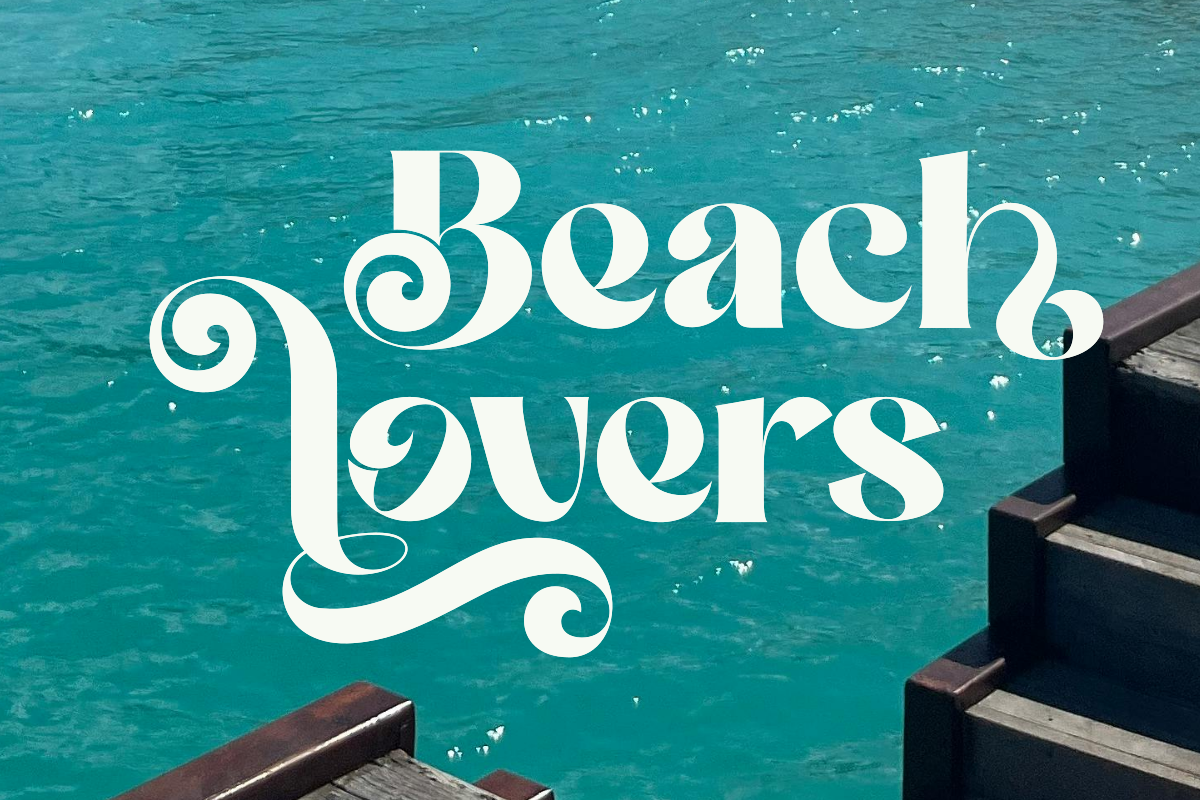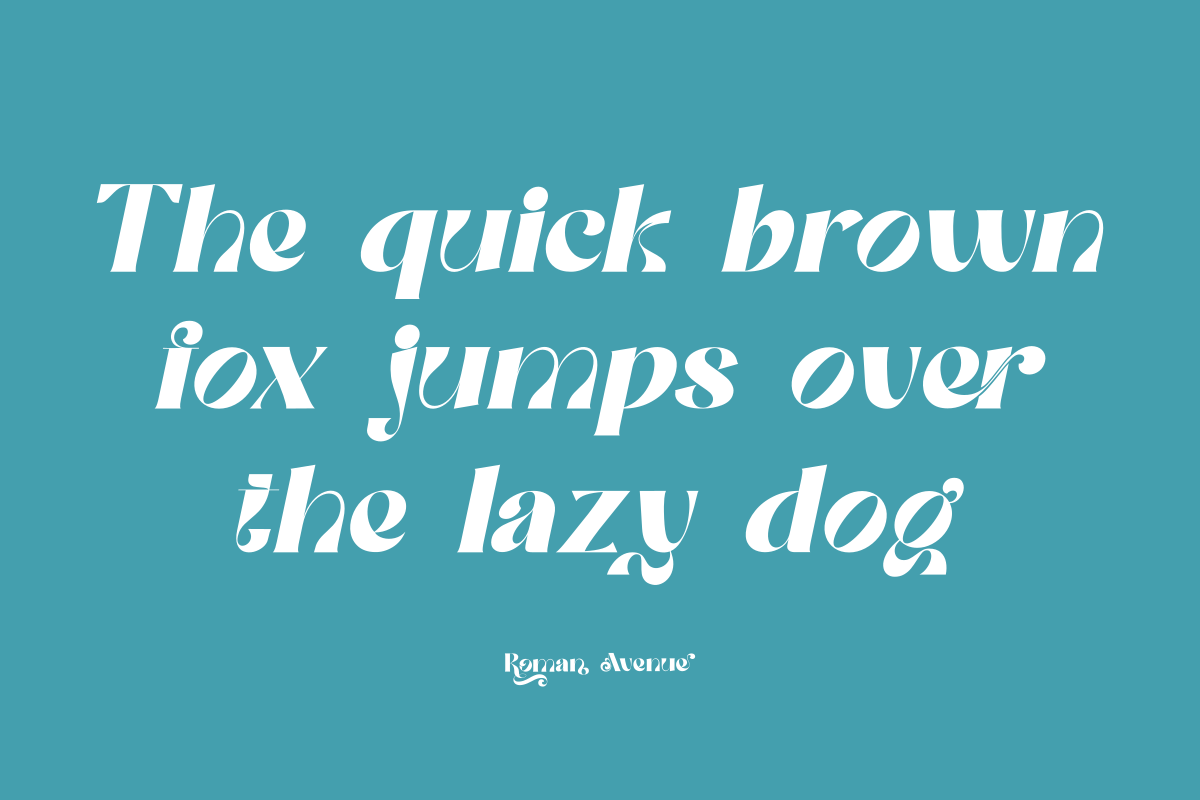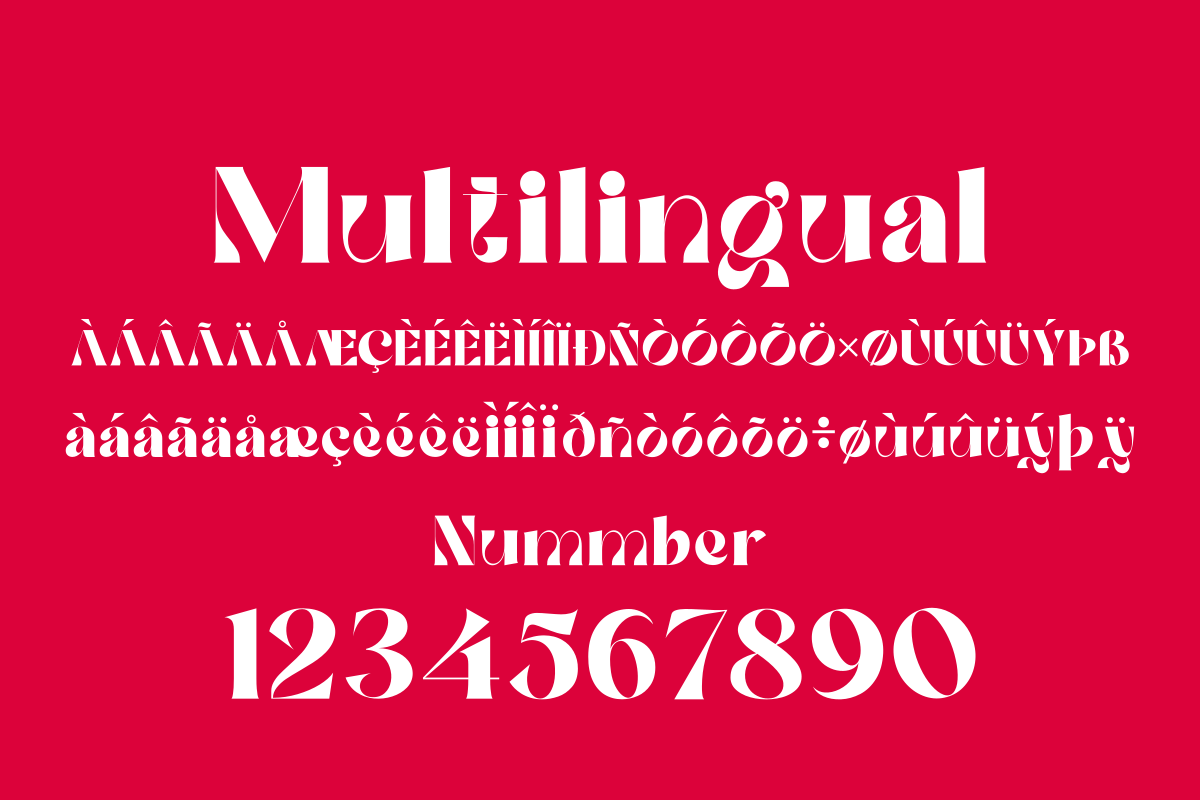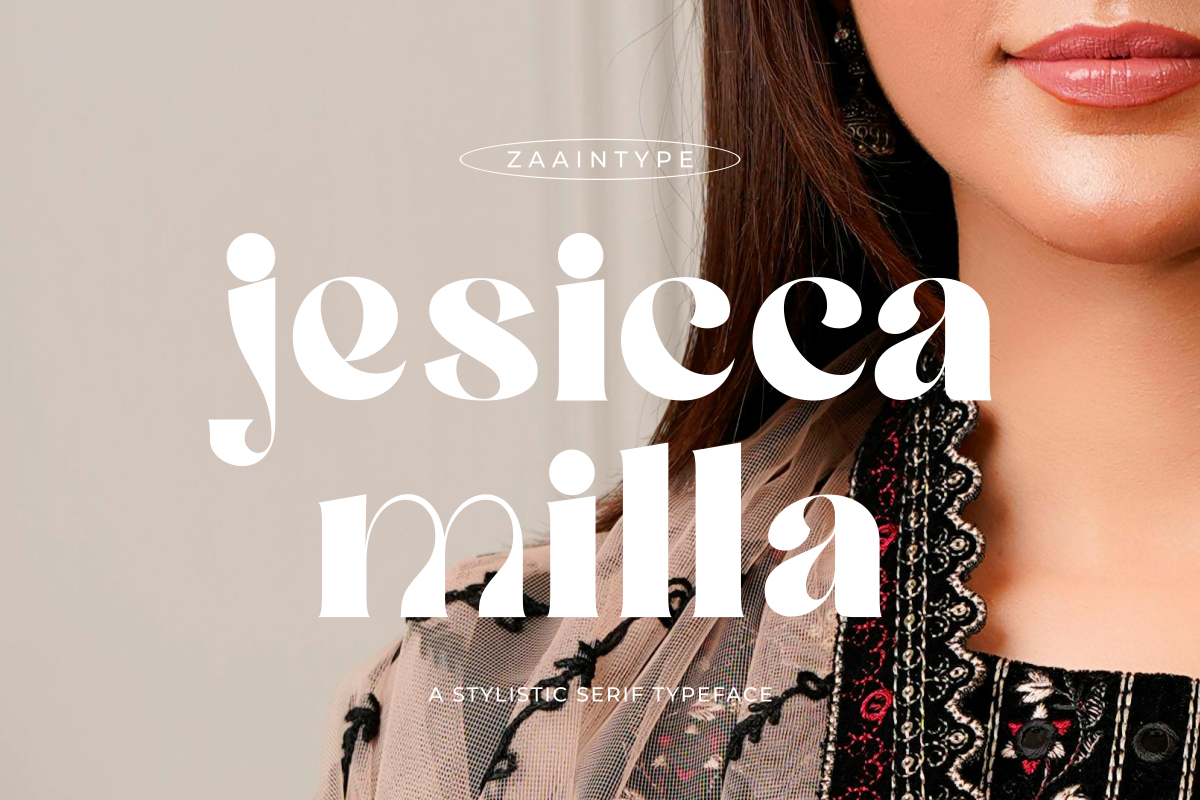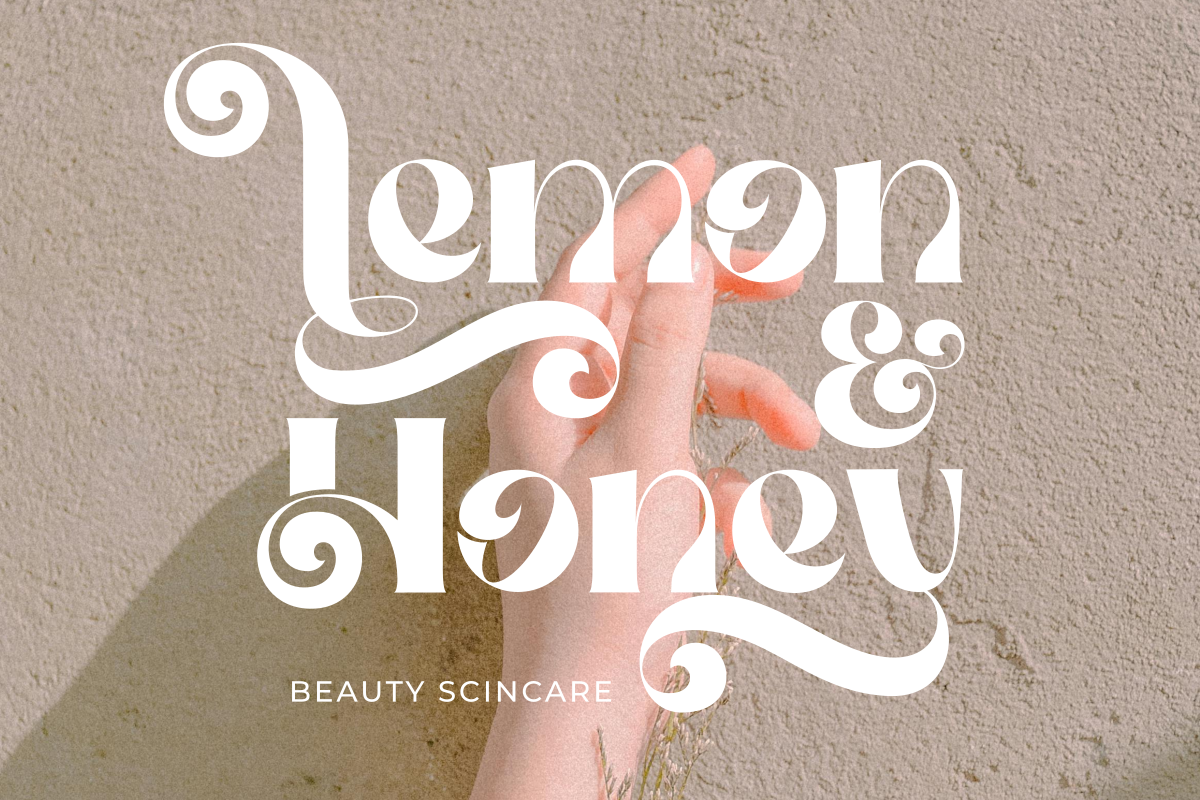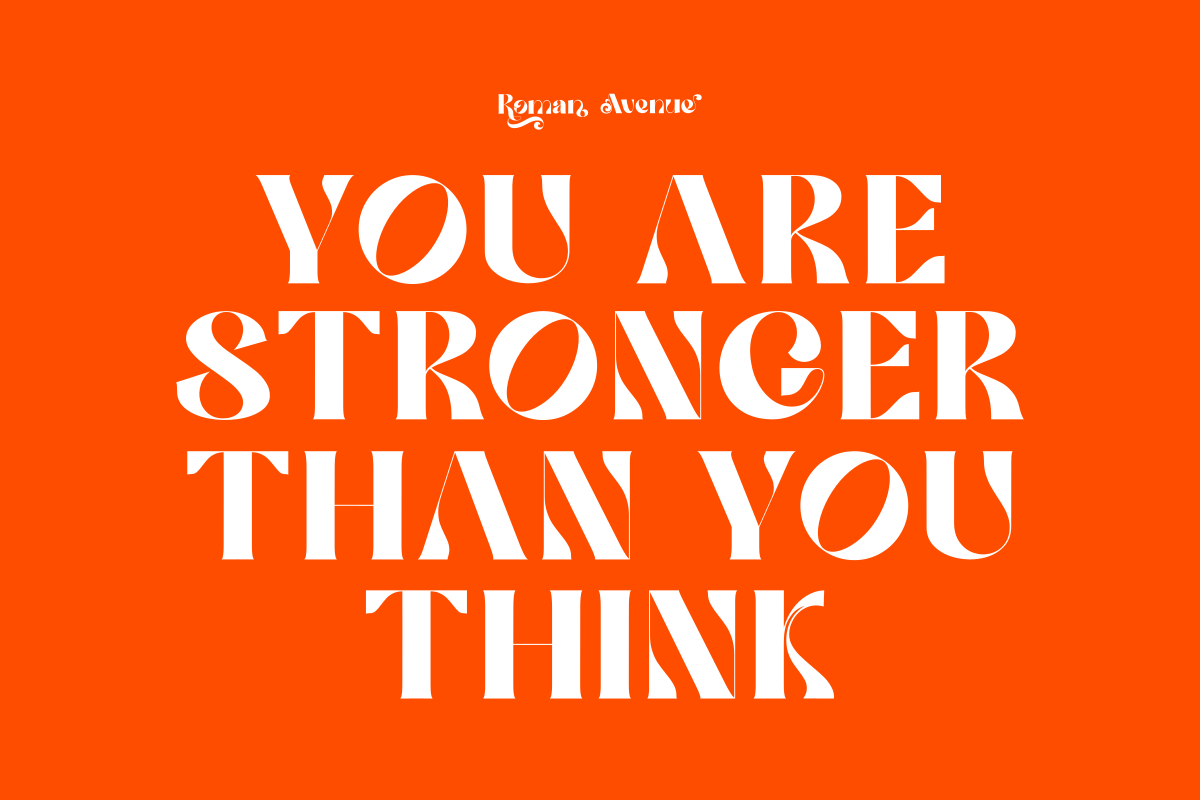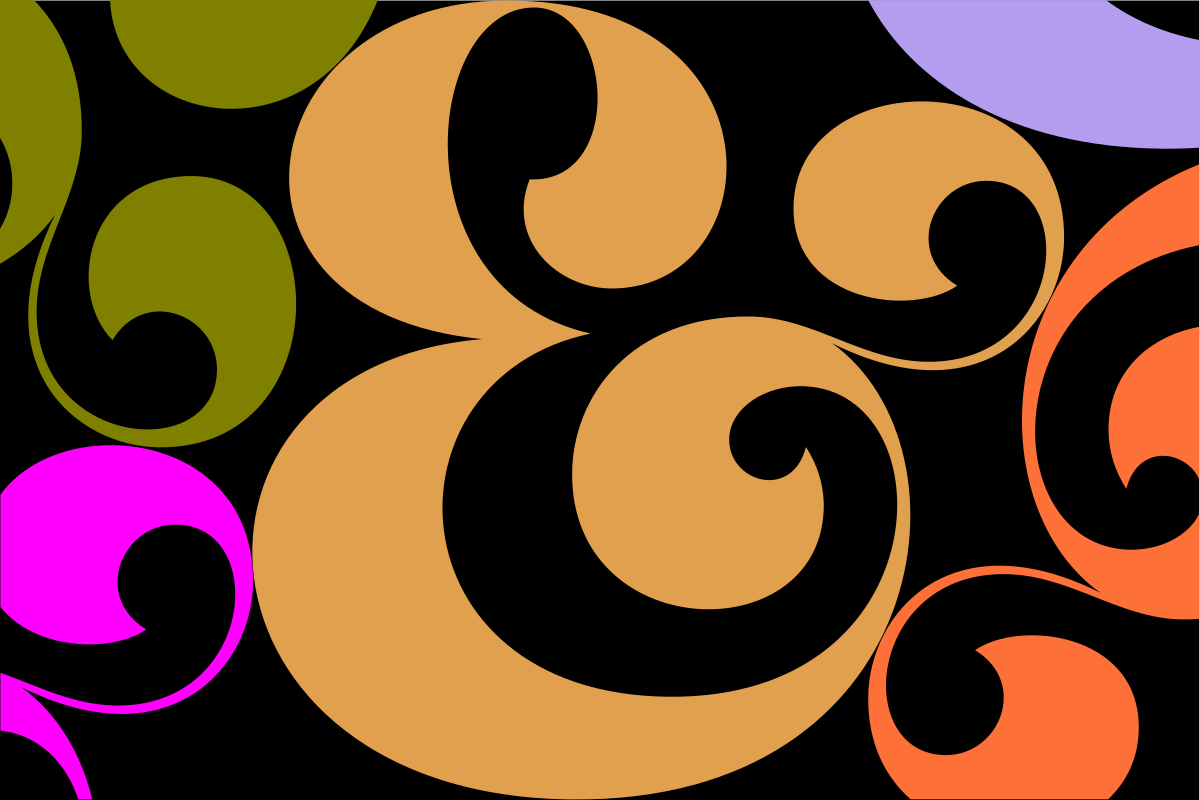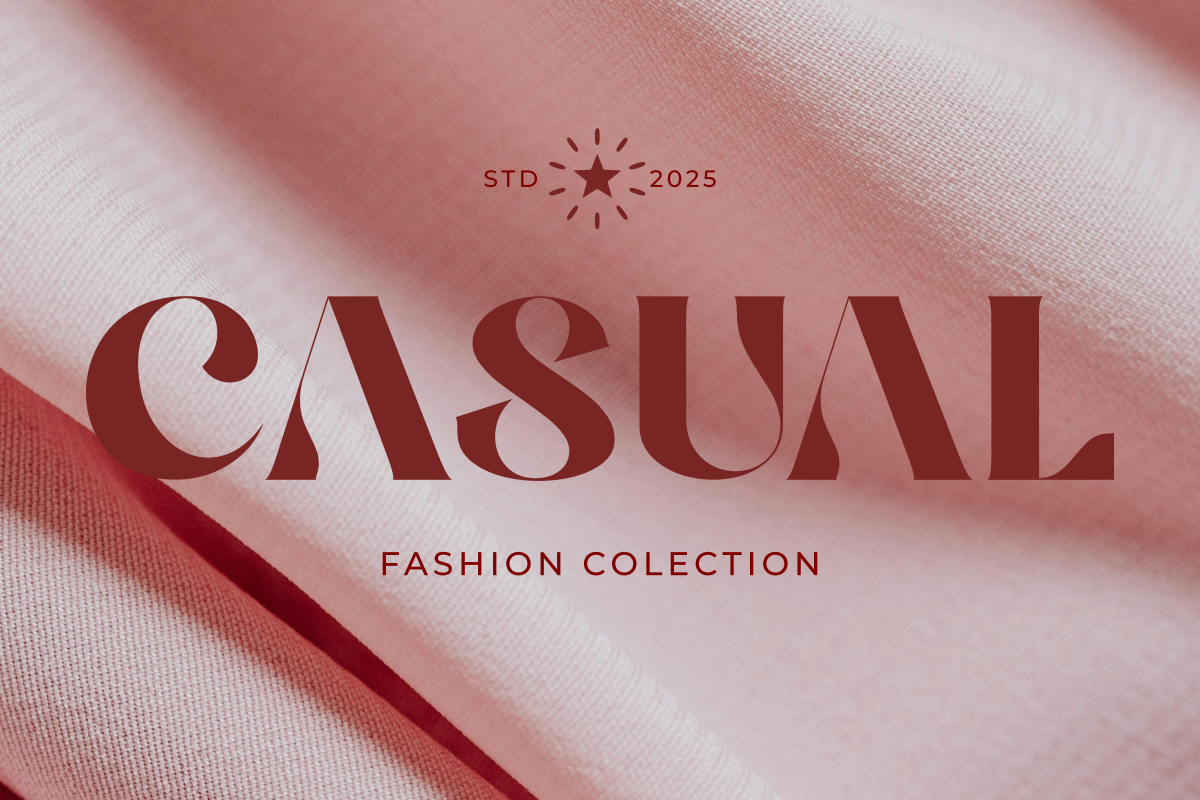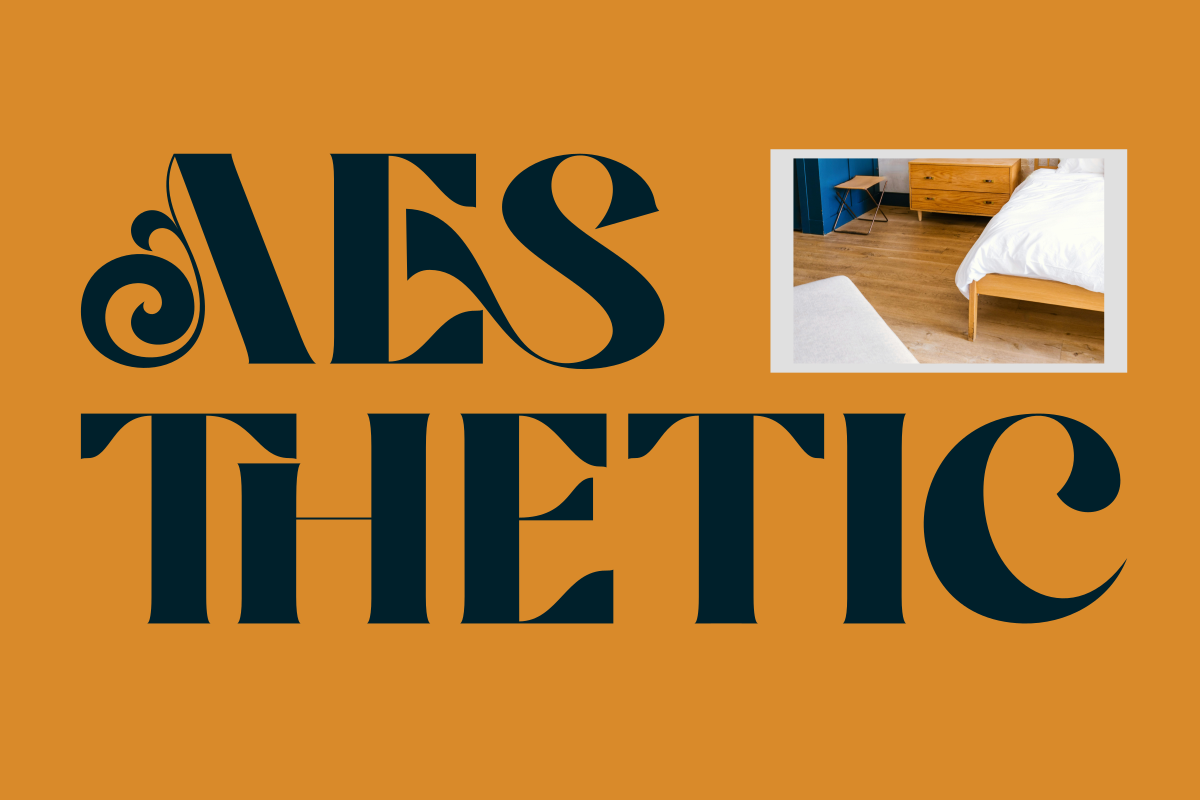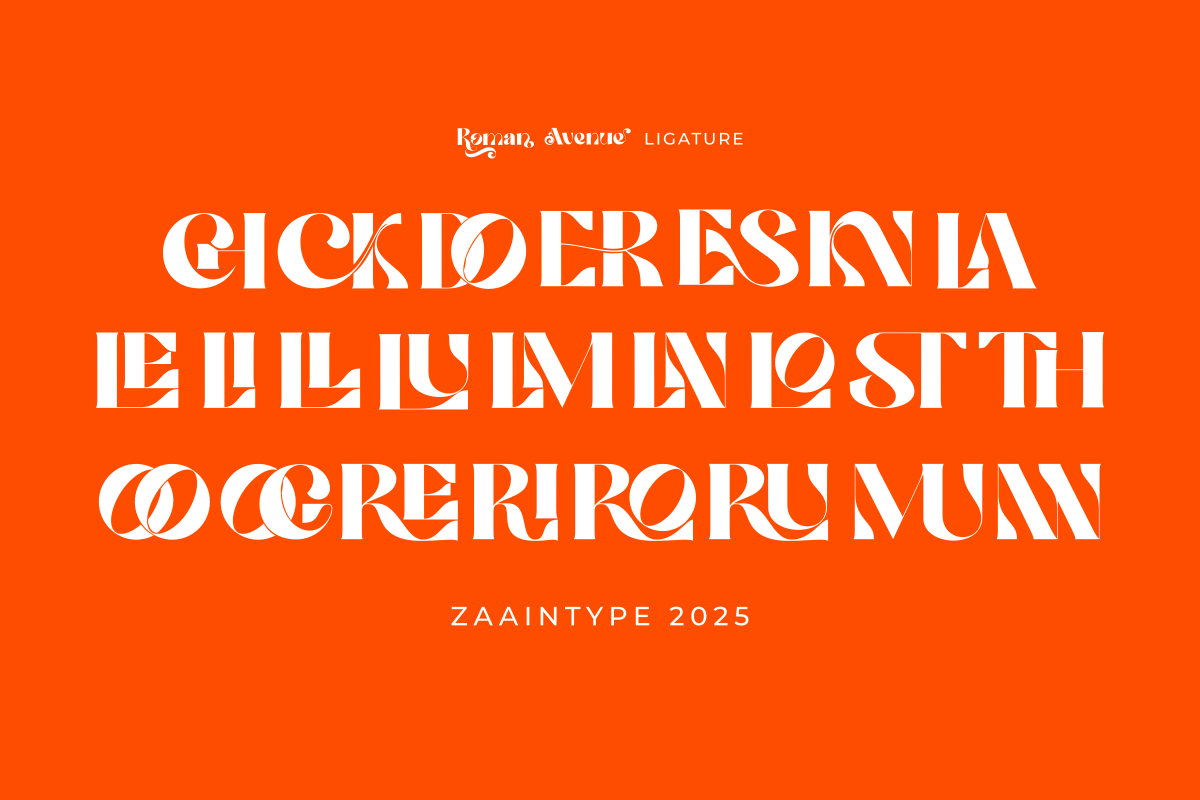
Roman Avenue
Roman Avenue is an elegant serif font that blends classical charm with a modern touch. Available in two styles—Regular and Oblique—it is crafted to deliver a luxurious and professional feel in every design. With balanced letterforms that are sharp yet refined, Roman Avenue is perfect for branding, editorials, and sophisticated visual projects